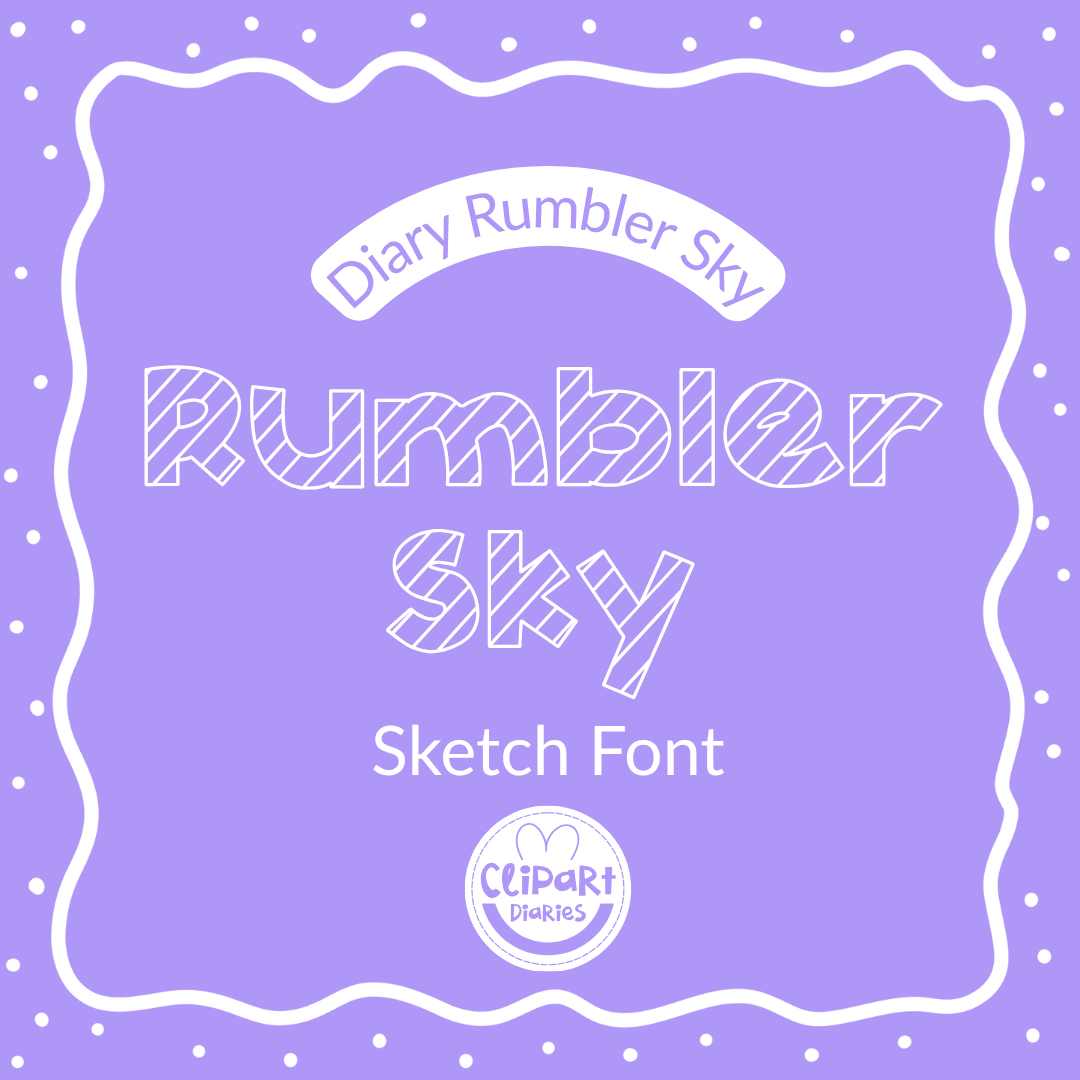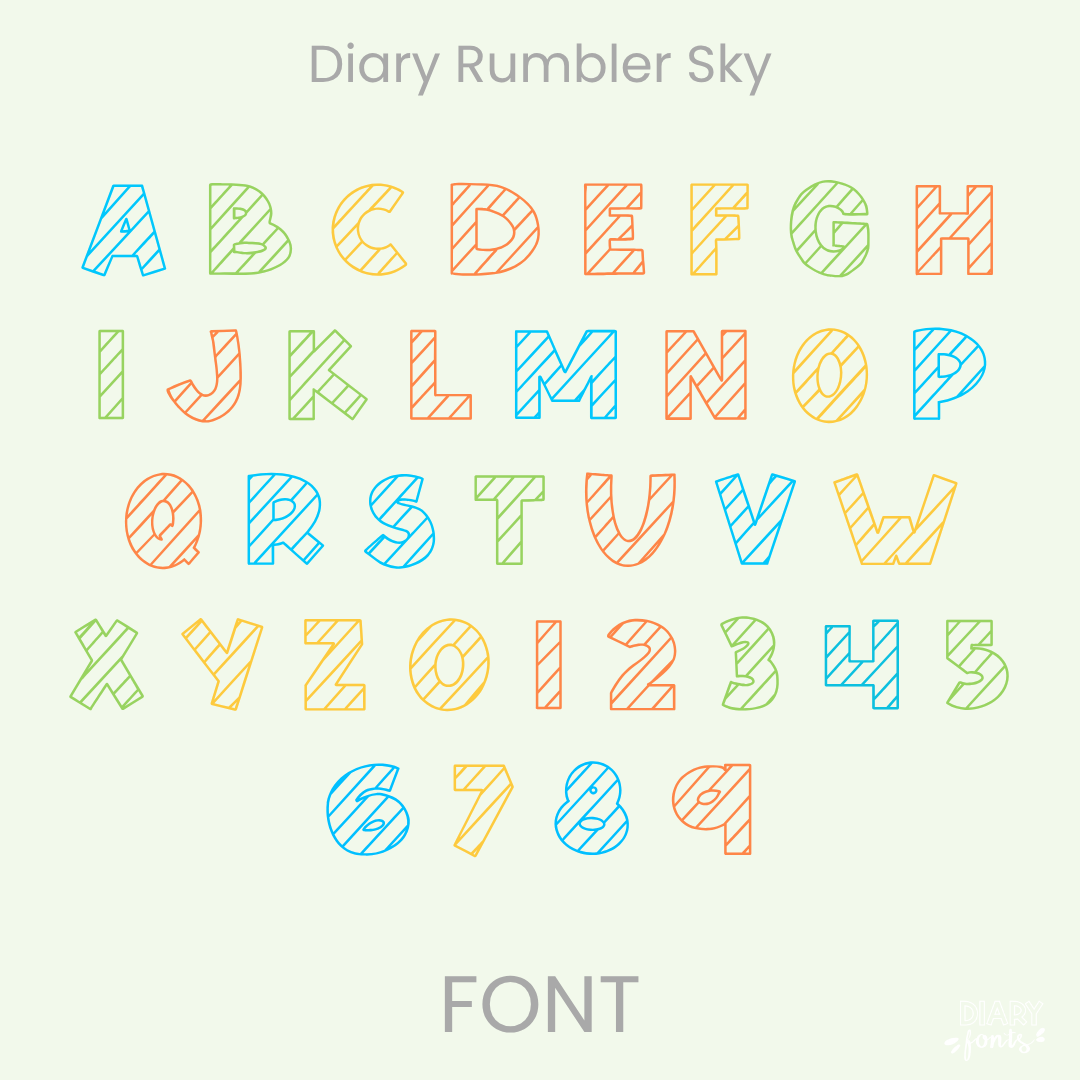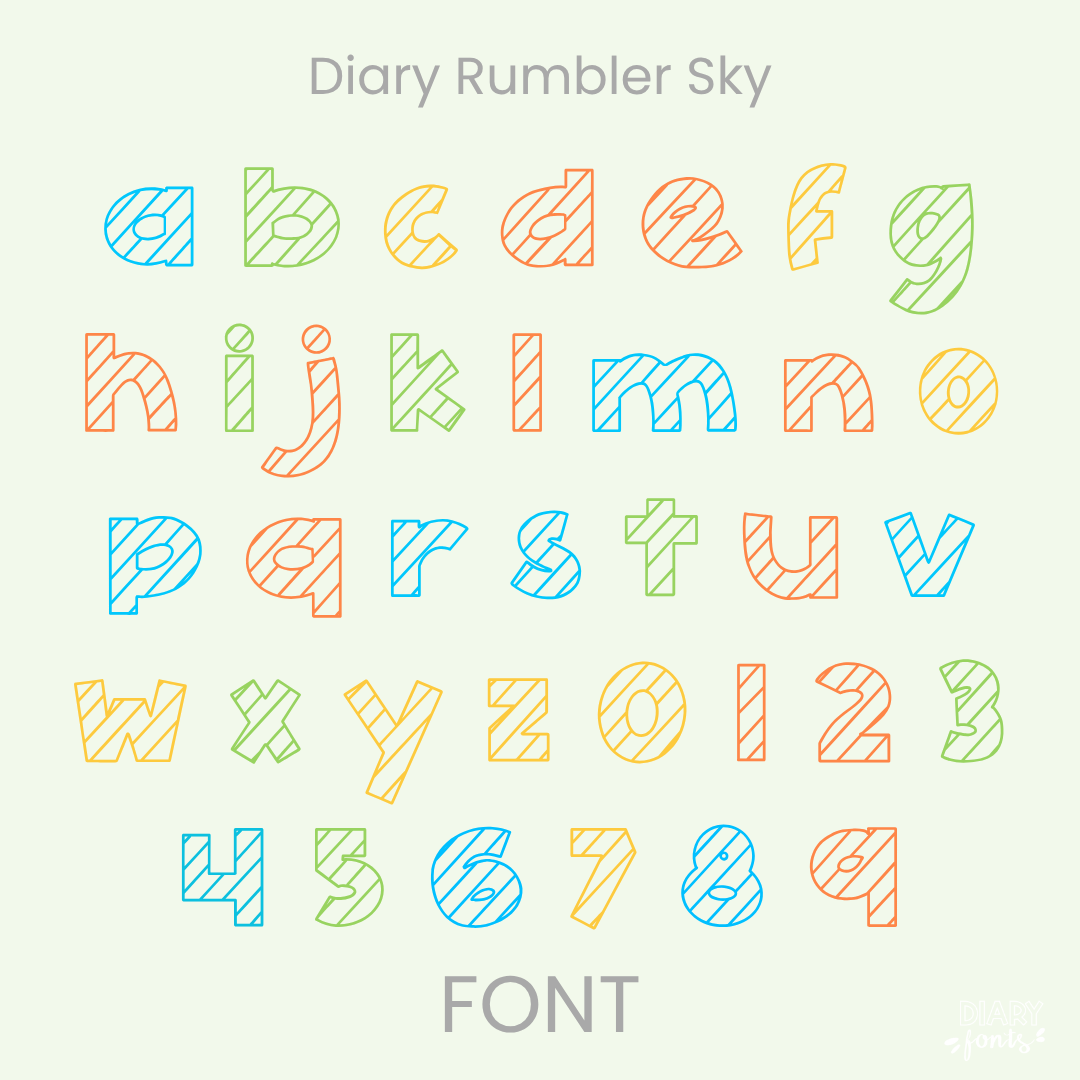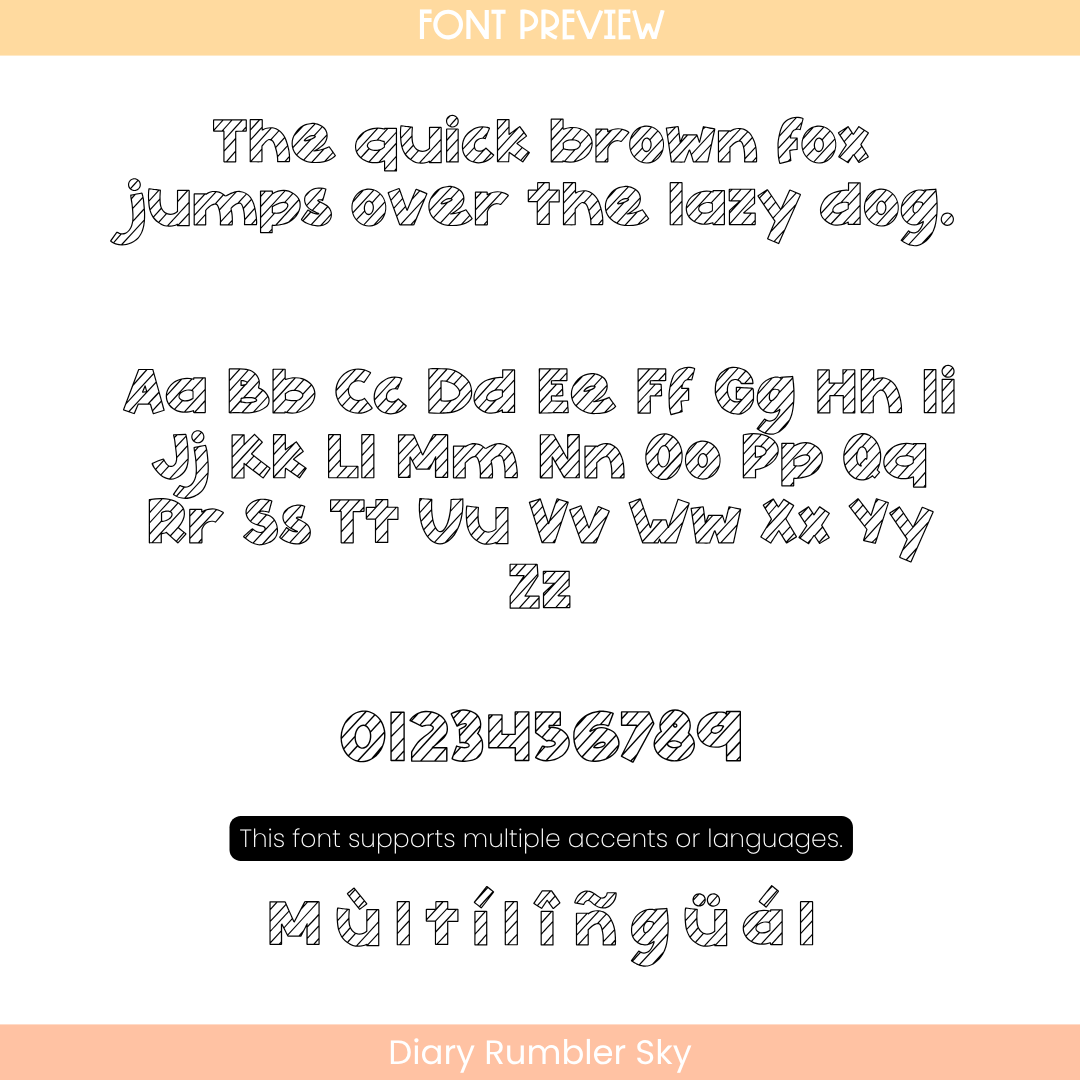
Diary Rumbler Sky – Sketch Style Font
Diary Rumbler Sky is a chunky display font featuring a fun, sketch-filled striped pattern that brings a creative, hand-drawn texture to your classroom titles and resources!
If you love a bold heading font but want to add an extra layer of artistic flair, Diary Rumbler Sky is about to be your new absolute favorite. This clever display font takes thick, blocky letterforms and fills them with a hand-drawn, diagonal sketched stripe pattern. With its textured internal lines, it brings tons of playful, crafty energy to the page while staying completely clean, crisp, and incredibly easy for your sweet students to read from across the room.
It is the perfect choice for designing eye-catching bulletin boards, custom presentation slide titles, coloring activity pages, subject covers, and classroom labels where you want a fun, sketched look. Inside the download, you’ll get a full set of striped uppercase and lowercase letters, matching patterned numbers, and multi-accent marks for complete multilingual support. It drops right into Canva, MS Office, or Adobe on your desktop, and pairs beautifully with Procreate and GoodNotes on your iPad. Whether you’re crafting weekly printables for your own sweet classroom or designing a bold new product line for your online teacher shop, this sketched display font adds a touch of confident, friendly style to your toolkit.